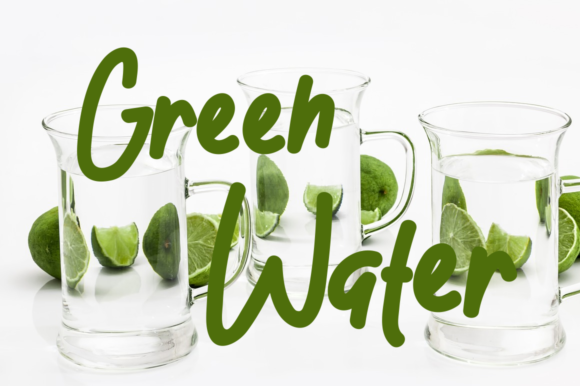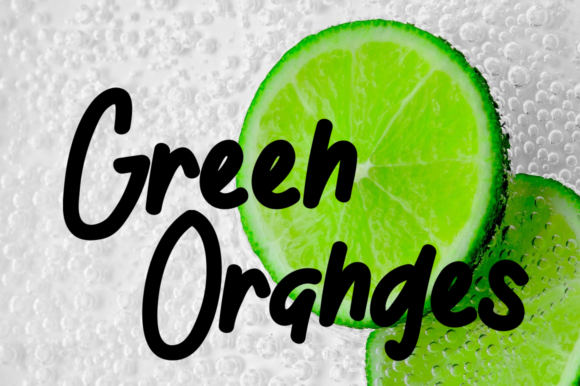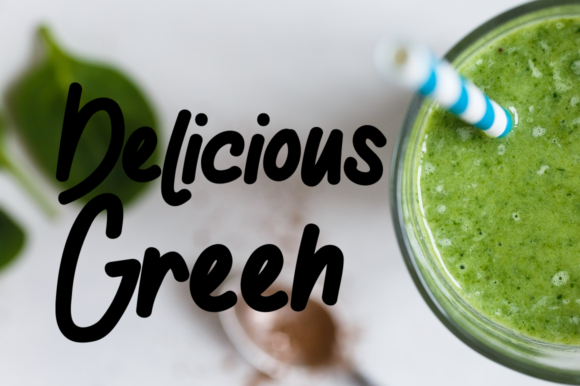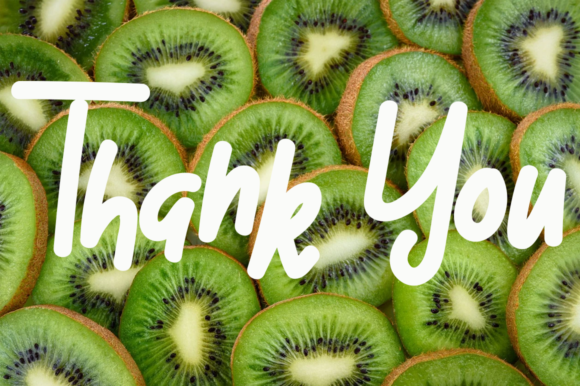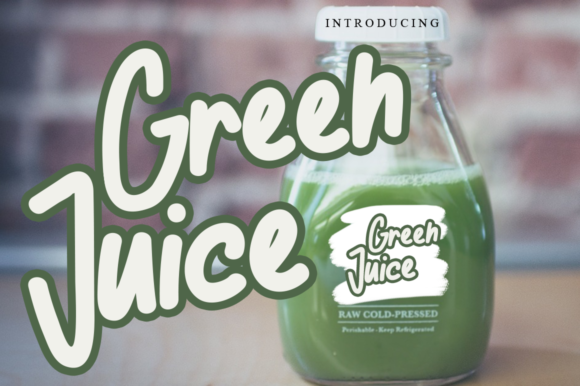
Introducing Green Juice Font: The Ultimate Choice for Fashion Branding and Editorial Designs
Are you a designer or a crafter looking for a font that can add a touch of freshness and relaxation to your projects? Look no further than the Green Juice Font. This beautifully crafted paint-brushed handwritten font is perfect for fashion branding, editorial designs, and any other project that requires a unique and stylish touch.
What Makes Green Juice Font So Special?
The Green Juice Font is defined by its smooth curves and relaxed vibe, making it an excellent choice for designers who want to add a human touch to their work. The font’s paint-brushed texture gives it a distinctive look that is both elegant and casual, making it perfect for a wide range of applications.
Key Features of Green Juice Font
- Relaxed and Fresh: The Green Juice Font has a laid-back, fresh feel that makes it perfect for designs that require a youthful and vibrant touch.
- Smooth Curves: The font’s smooth curves give it a fluid and natural look that is easy on the eyes.
- Paint-Brushed Texture: The paint-brushed texture of the font adds a unique and artistic touch to any design.
- Fashion Branding: The Green Juice Font is perfect for fashion branding, including logos, labels, and packaging.
- Editorial Designs: The font is also great for editorial designs, such as magazines, blogs, and newspapers.
Why Choose Green Juice Font?
- Unique Look: The Green Juice Font has a unique look that sets it apart from other fonts.
- Easy to Read: The font is easy to read, making it perfect for body text and headlines.
- Versatile: The Green Juice Font can be used for a wide range of projects, from fashion branding to editorial designs.
- High-Quality: The font is of high quality, with smooth curves and a professional finish.
How to Use Green Juice Font in Your Projects
- Pair it with Other Fonts: The Green Juice Font can be paired with other fonts to create a unique and stylish look.
- Use it for Headlines: The font is perfect for headlines and titles, where its bold and playful texture can really shine.
- Add it to Your Branding: The Green Juice Font can be used as part of your branding, including logos, labels, and packaging.